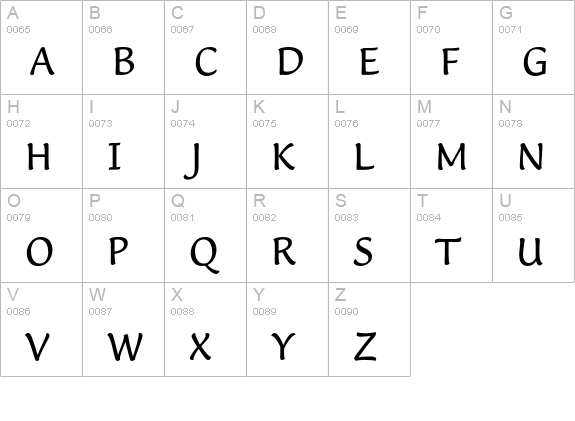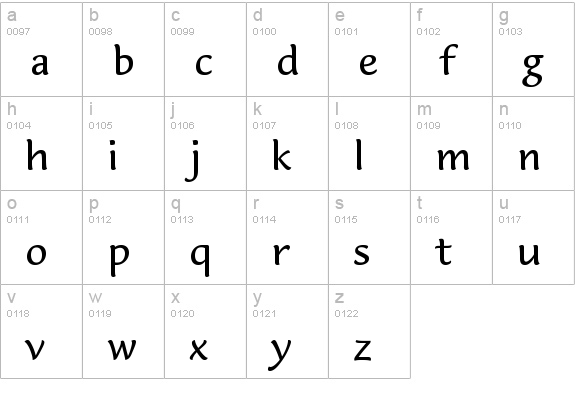
LucidaCasualEF-Roman Font Details
LucidaCasualEF-Roman is a versatile and elegant font that exudes a sense of sophistication and modernity. With its clean lines and smooth curves, this font is perfect for a wide range of design projects, from branding to editorial layouts. The classic yet contemporary style of LucidaCasualEF-Roman adds a touch of refinement to any text, making it a popular choice among designers and creatives. The best part about LucidaCasualEF-Roman is that it is completely free to download at FontsMarket.com. This means you can easily access this beautiful font for your projects without any cost. Whether you're working on a personal project or a professional design, LucidaCasualEF-Roman is a fantastic option that will elevate your work to the next level. Download this stunning font today and add a touch of elegance to your designs.